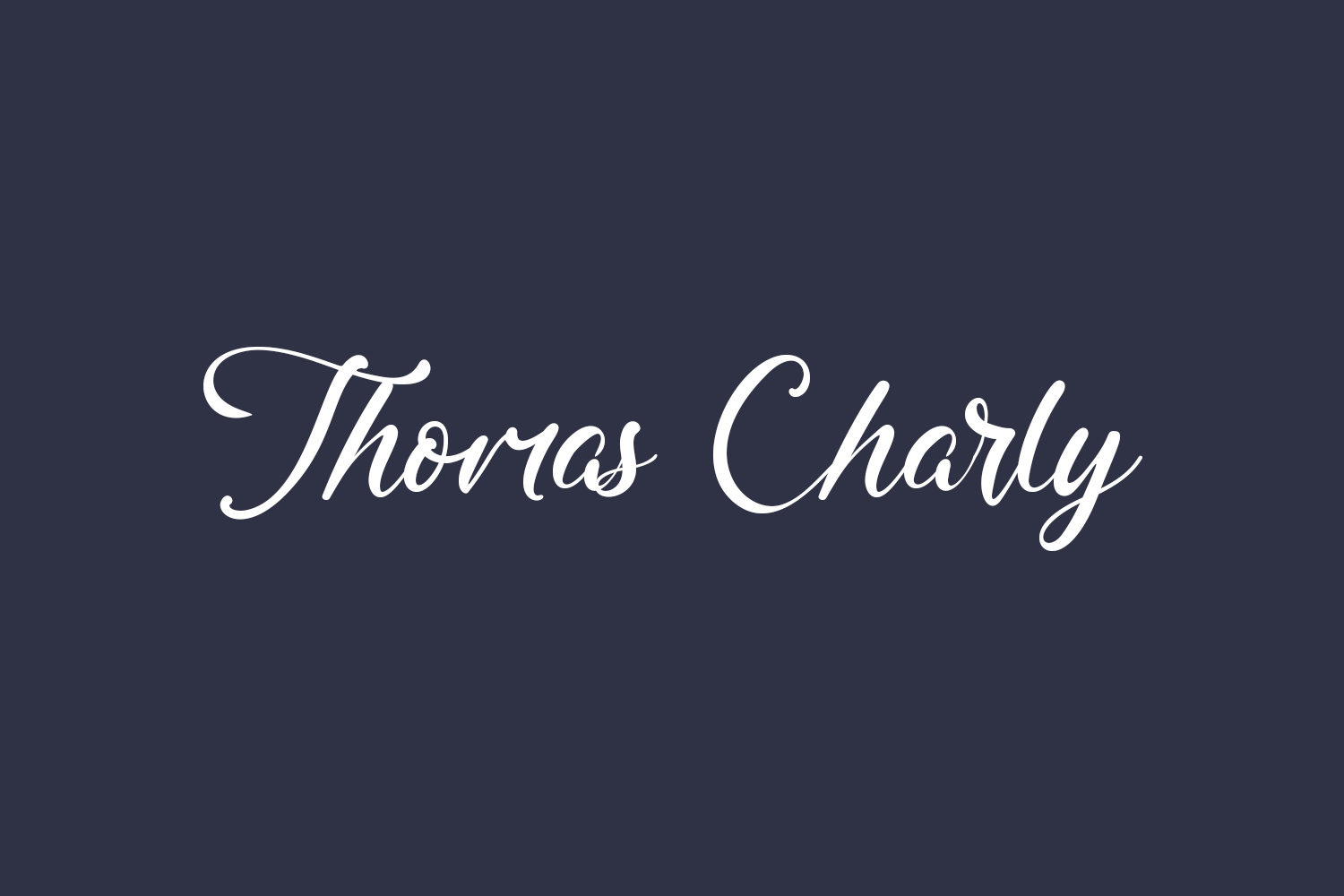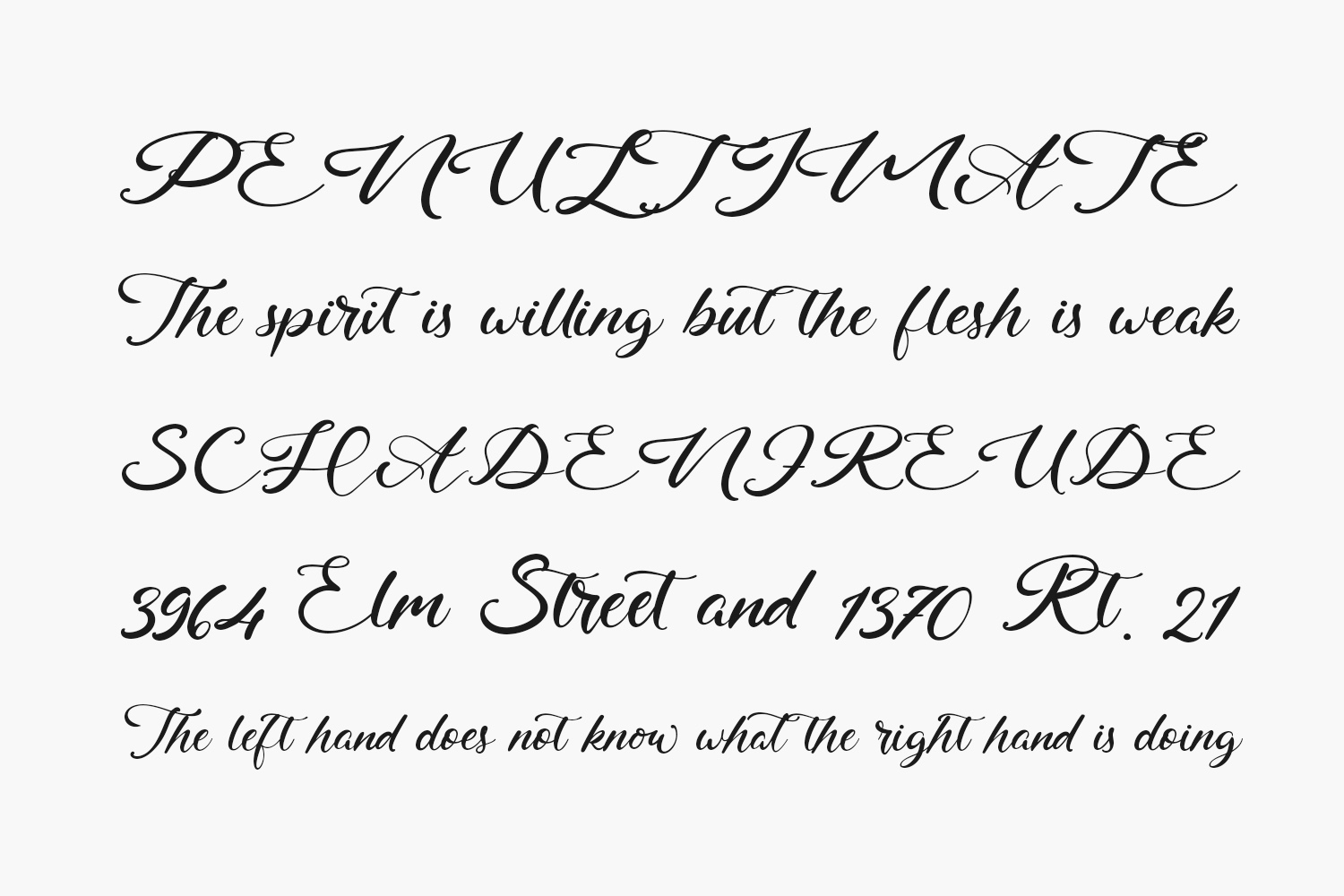
Thomas Charly Free Font is a modern and elegant handwritten script font. It’s great for crafters and designers. It is perfect for product packaging, branding project, magazine covers, social media, weddings, or just used to express words above the background. Thomas Charly Free Font was designed by Kong Font and is free for personal use only. Please purchase the full version for commercial use.